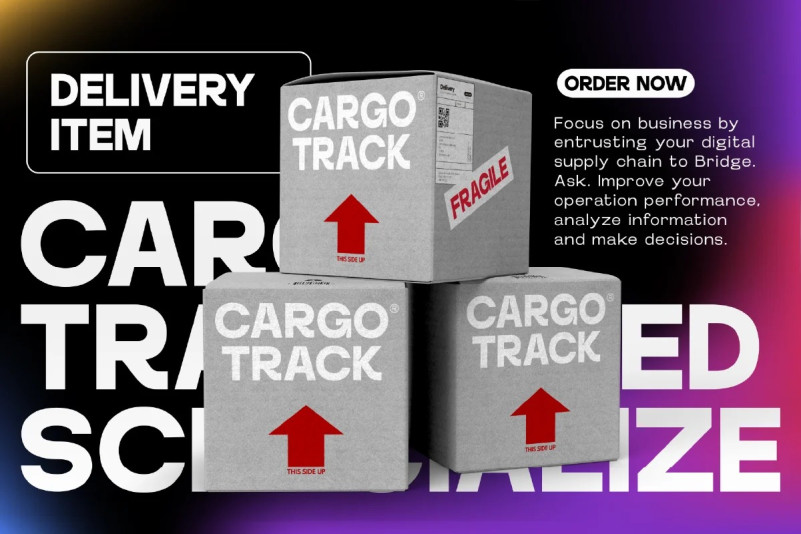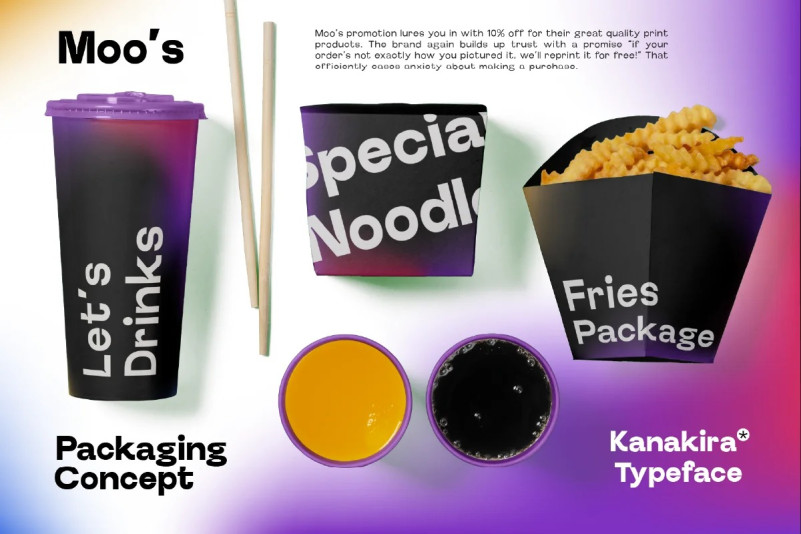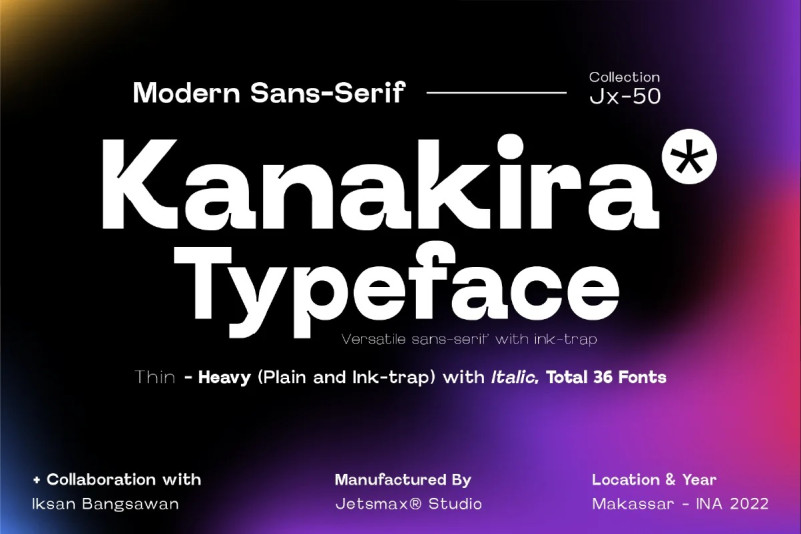
Kanakira Font
Kanakira Font is a modern sans typeface heavy on a geometric take of the neo-grotesque model. Available in 3 styles, Kanakira is ready to be your “go-to” font for any project.